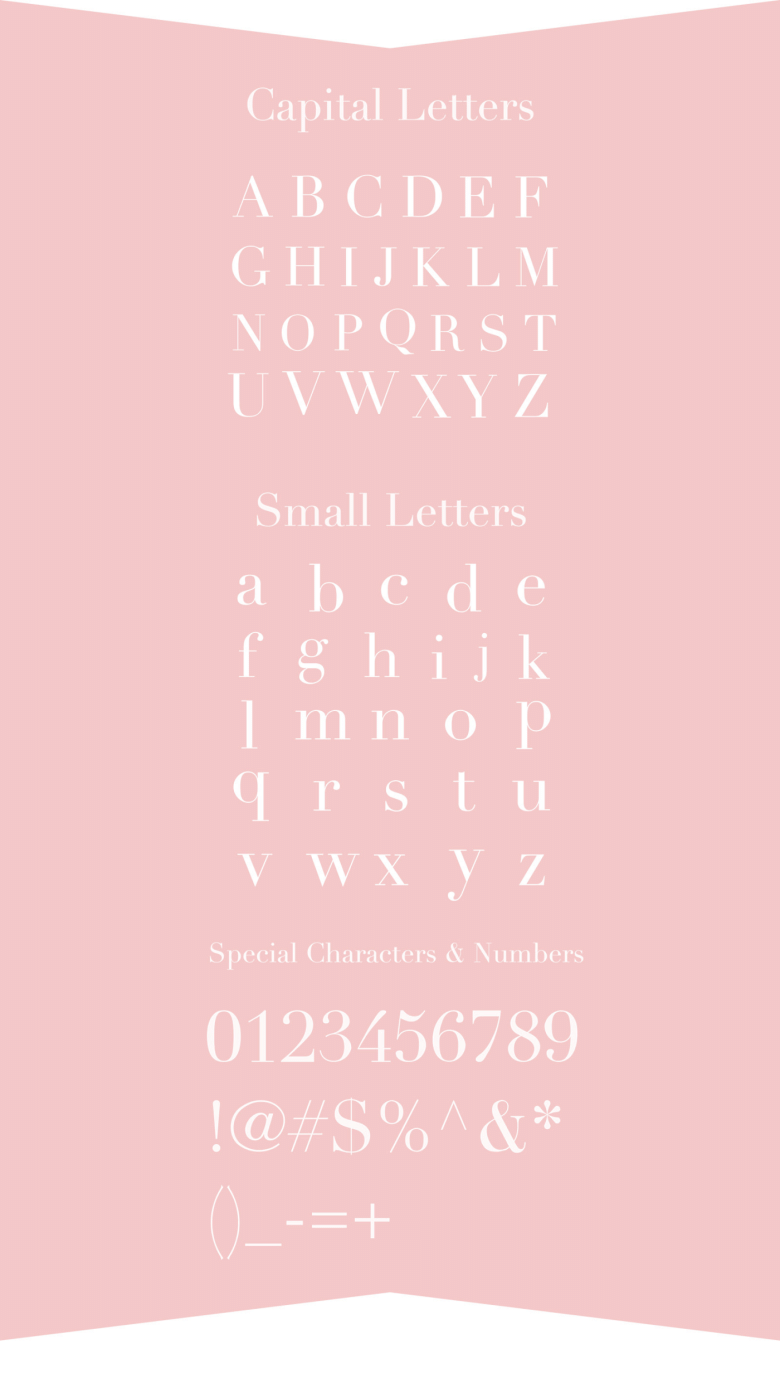
Quartz Typeface
Introducing Quartz Free Typeface!. Quartz was designed and shared by Zaher Almajed. Quartz is a new typeface that inspired by the world of fashion. Quartz Typeface should be in use by the most popular fashion magazines and super luxury brands. Quartz typeface include awesome ligatures and sexy numerals. Quartz is a luxury font you can use it as product title or logo.